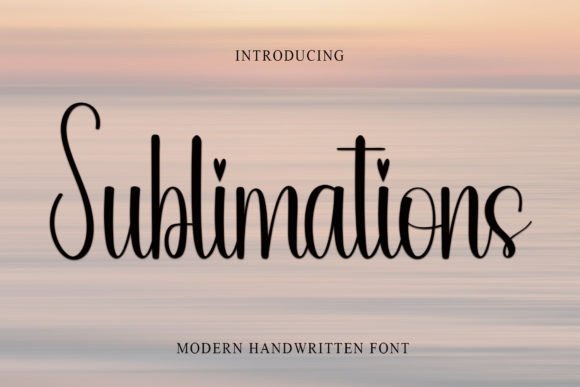
Journey into the realm of breathtaking elegance and timeless beauty with Sublimations Font, the exquisitely crafted script font, brought to you by PiPi Creative. This enchanting font family, designed with meticulous attention to detail, will add a touch of magic to your creative projects, whether you're a seasoned designer or just starting. Dive into the world of Sublimations and let your imagination soar.
Sublimations, named after the process of transforming something ordinary into something extraordinary, perfectly captures the essence of this exceptional font. It's a font that elevates your designs, making them stand out from the ordinary. With its graceful strokes, delicate curves, and elegant flourishes, Sublimations will add a touch of sophistication and charm to any project.
Imagine your wedding invitations adorned with the graceful letters of Sublimations, the names of your loved ones flowing across the page in a cascade of elegance. With its ethereal beauty, Sublimations will transform your designs into works of art.
Whether it's social media posts, logos, branding materials, posters, or any other creative endeavor, Sublimations is your perfect companion. Its versatility knows no bounds, making it the ideal choice for a wide range of projects. Express yourself in a way that captivates and inspires with this exceptional font.